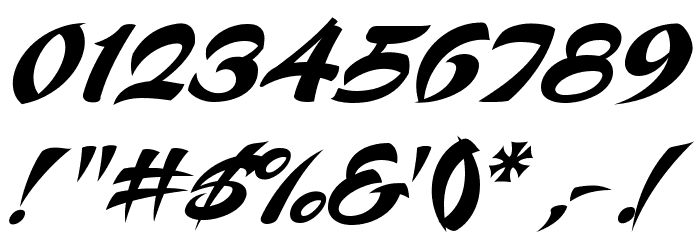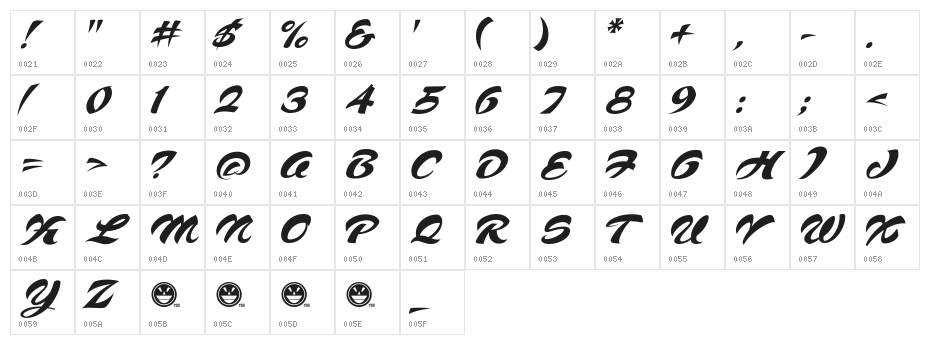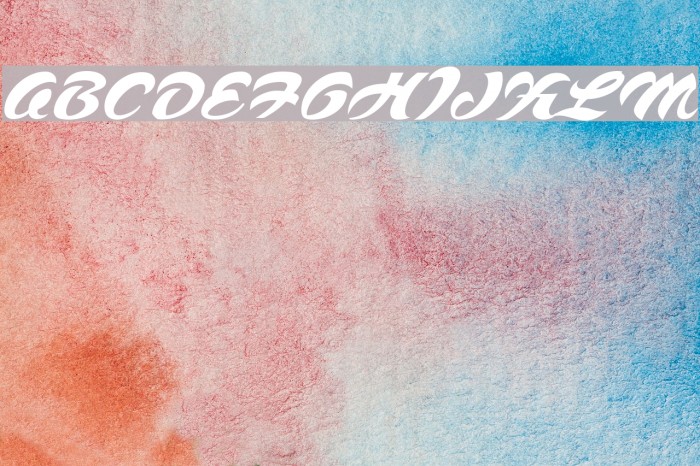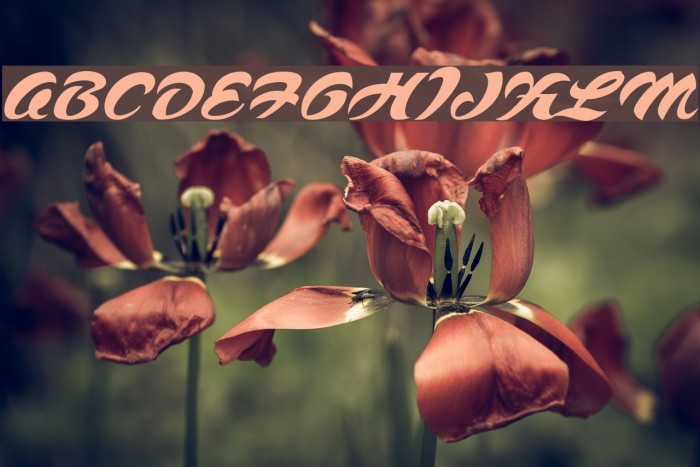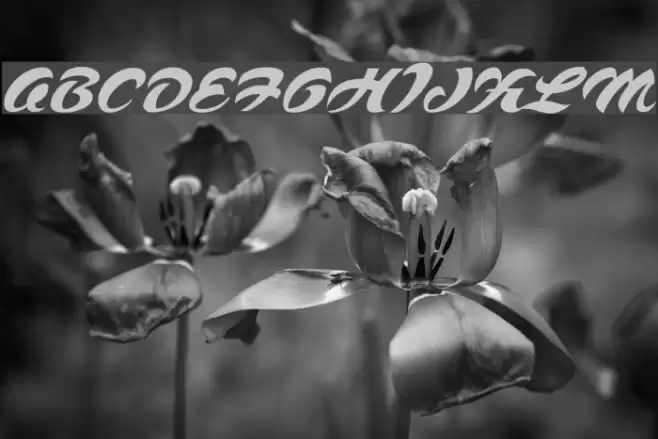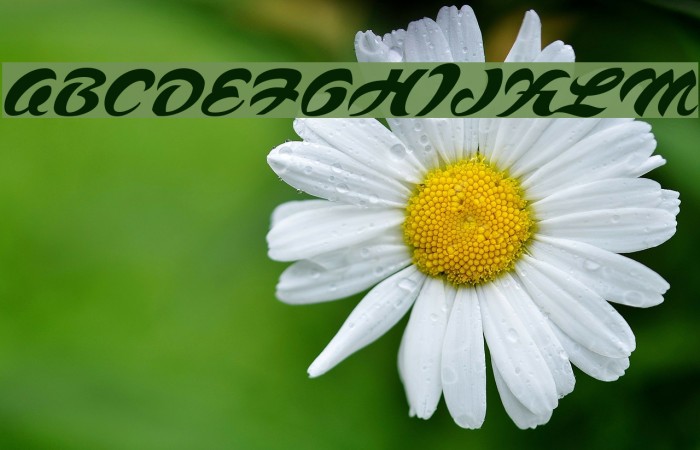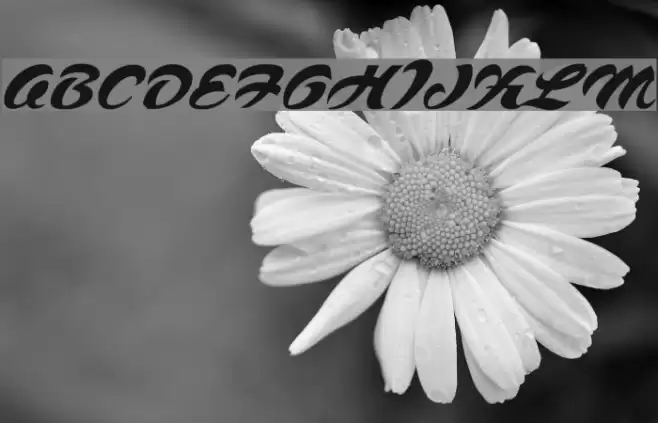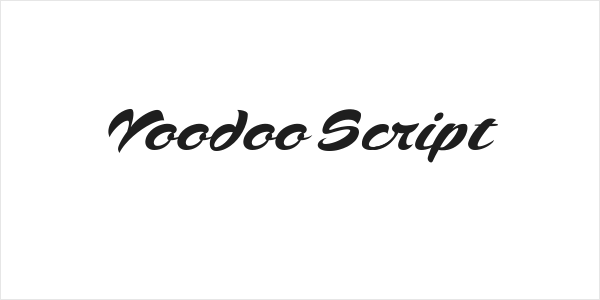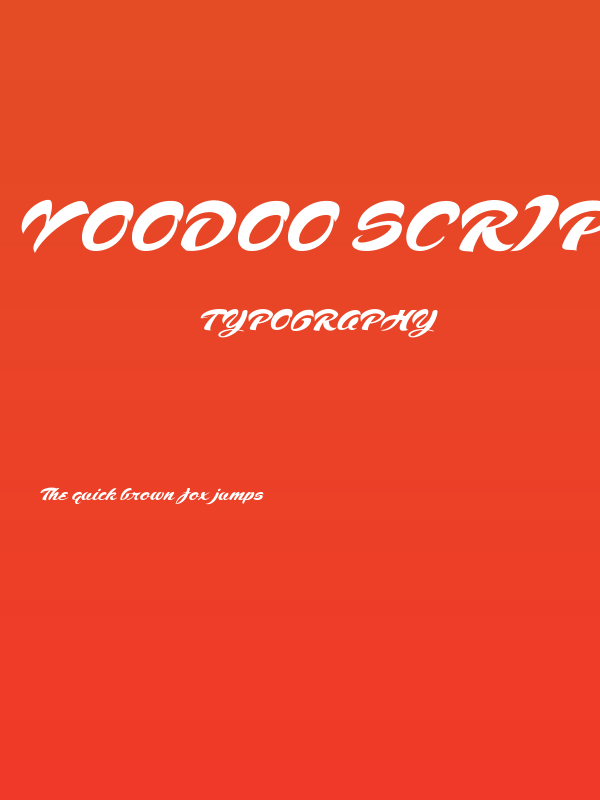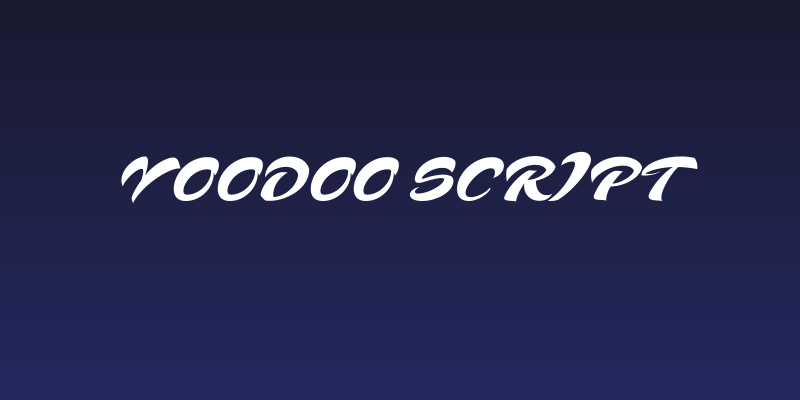
Voodoo Script Font
Voodoo Script Description
This font exudes a bold and dynamic script style, characterized by its sweeping curves and dramatic flourishes. The letters are connected in a fluid manner, giving it a sense of motion and elegance. The uppercase letters are particularly striking, with exaggerated loops and swashes that add a touch of sophistication. The lowercase letters maintain a consistent flow, ensuring readability while still retaining the font's artistic flair. Numbers and special characters are designed to match the overall aesthetic, making them suitable for a variety of creative applications. The font's boldness and unique style make it ideal for projects that require a strong visual impact.